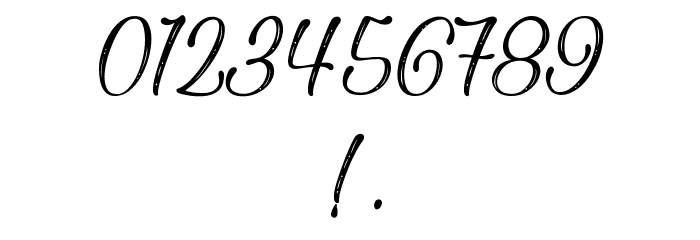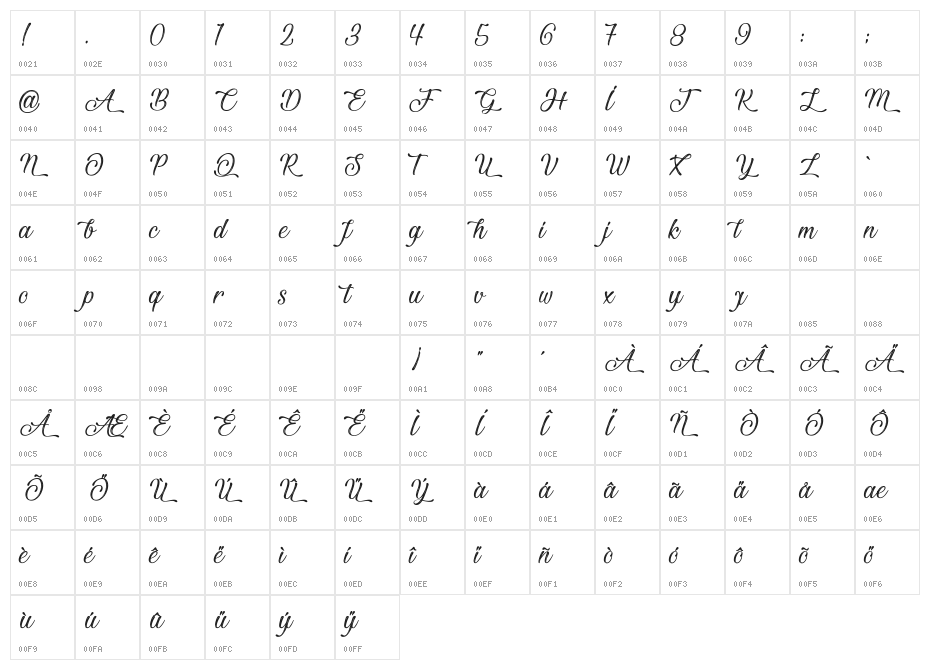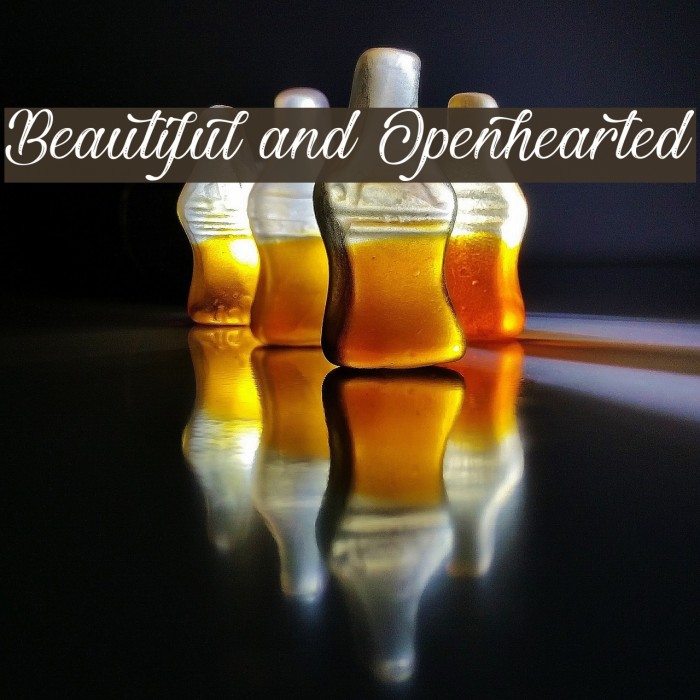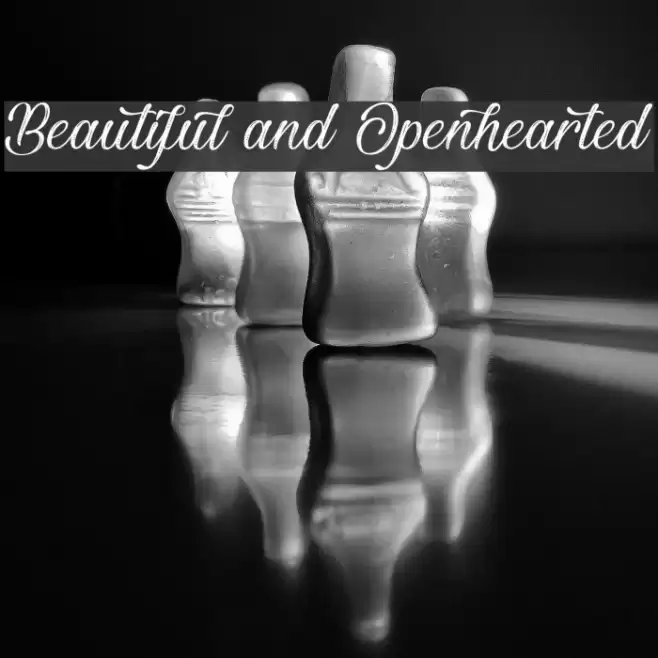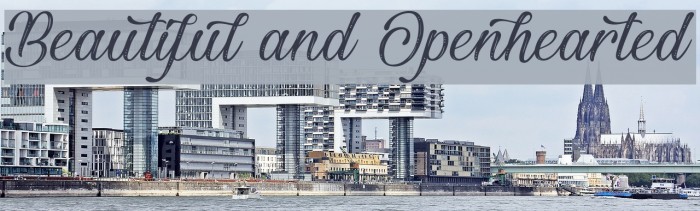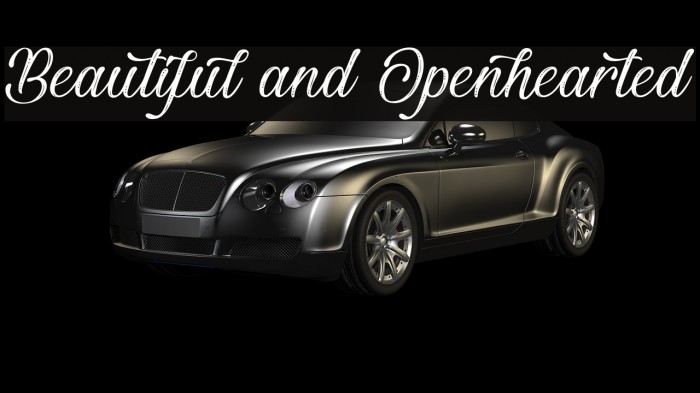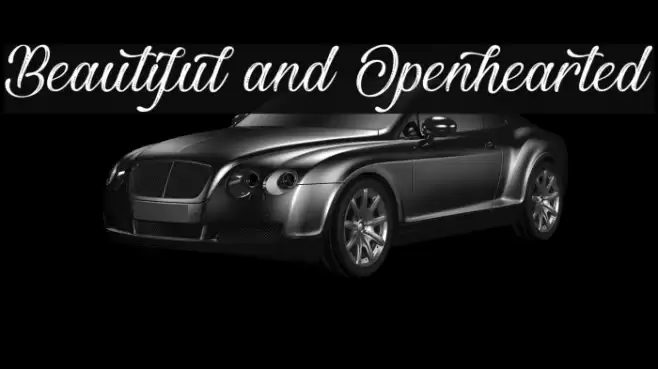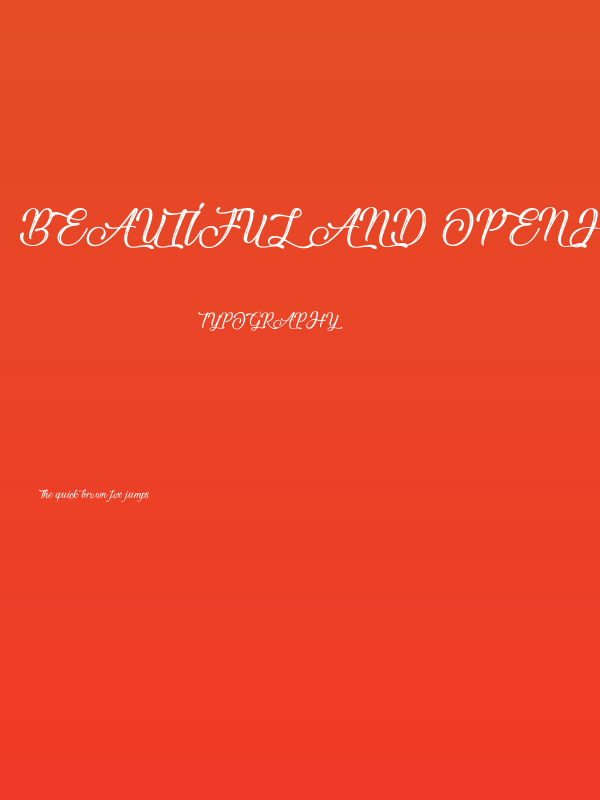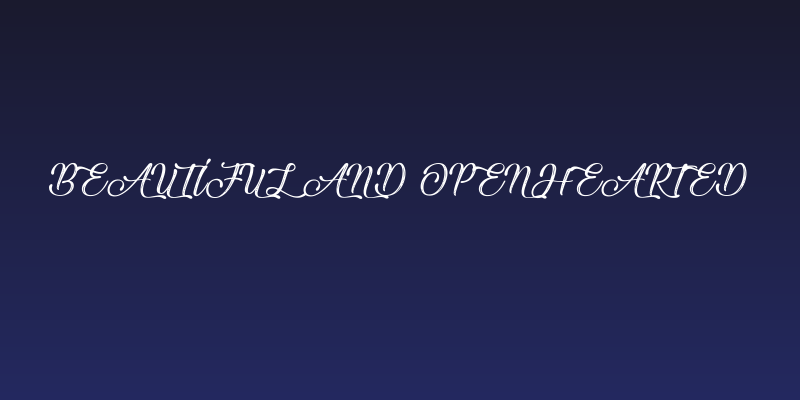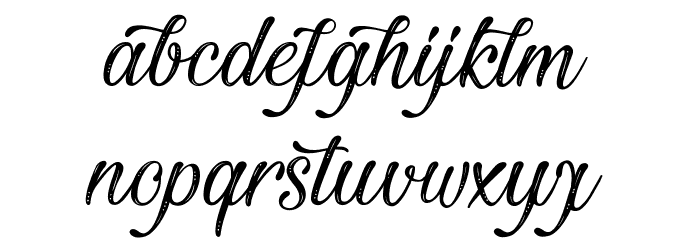
Beautiful and Openhearted Font
Beautiful and Openhearted Description
This elegant script font features flowing, interconnected letters that exude a sense of grace and sophistication. The uppercase characters are ornate and slightly larger than the lowercase, which are more delicate and refined. The numbers maintain the same elegant style, making them suitable for decorative purposes. The font's overall appearance is reminiscent of classic calligraphy, with smooth curves and a consistent stroke width that adds to its readability. The special characters are thoughtfully designed to match the aesthetic, ensuring a cohesive look across all text elements.
| Proposed Projects | Ideal for wedding invitations, elegant branding, greeting cards, and any project requiring a touch of sophistication. |